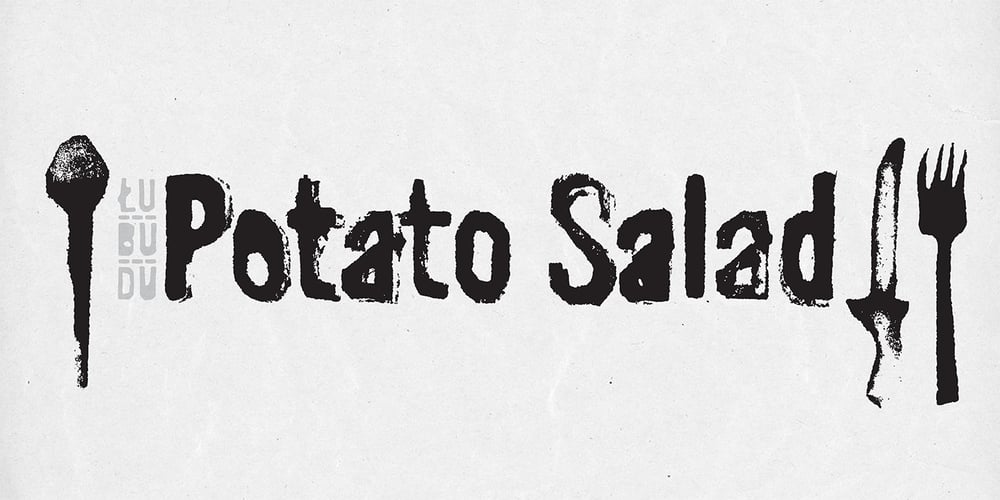
Potato Font Family was designed by Ewa Łubiarz and published by ŁUBUDU. Potato contains 4 styles and family package options. The Potato font was made using a technique everyone probably knows from childhood – the letters were cut out from a potato which was used as a stamp. It was designed for my cook book. One of its best features is OpenType Contextual Alternates that will automatically replace each glyph with it alternate characters.